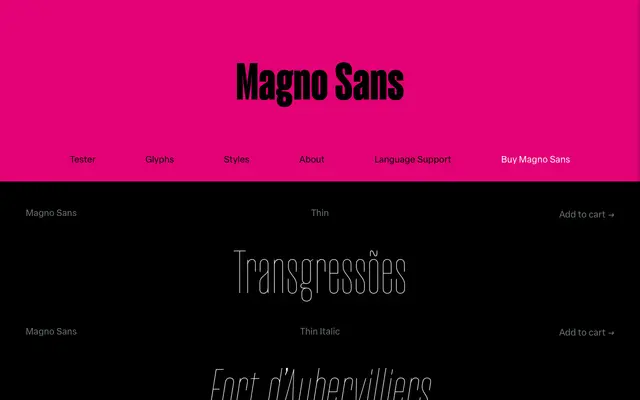
Magno Sans
Blackletra · Lucas Gini · 2022
A condensed geometric sans in eight weights with matching italics and a variable version, originating from a misidentified Brazilian metal type specimen.
Designed by Lucas Gini and released in 2022, Magno Sans grew from a 'Memphis' specimen found in Brazil that turned out to be something else entirely, becoming a standalone condensed family rather than a revival. The eight weights run from Thin to Black with corresponding italics, a variable font option, and OpenType features including small caps, multiple numeral sets, fractions, superiors, inferiors and a unicase stylistic set. Latin coverage extends to over 200 languages, and the family pairs with a companion serif, Magno Serif.
Magno Sans is a condensed geometric sans-serif that originated from a misidentified metal 'Memphis' found in Brazil, resulting in a display-oriented geometric family with consistent visual mass across a wide weight range.